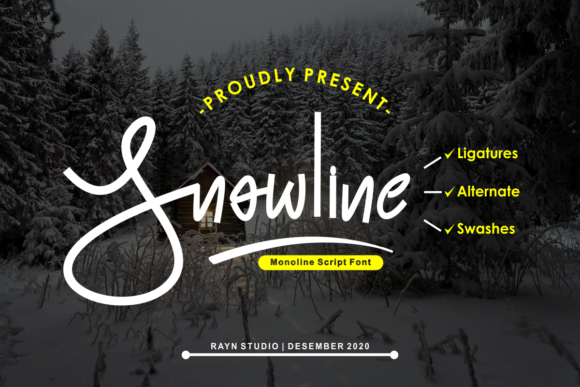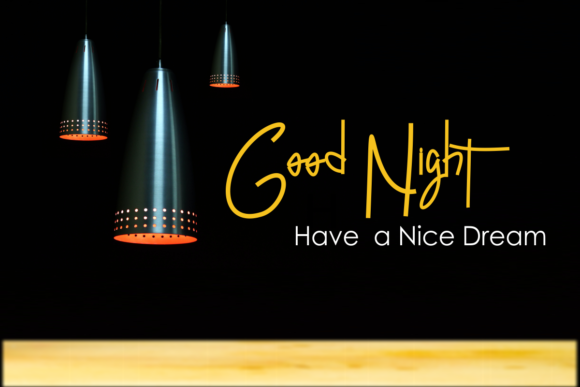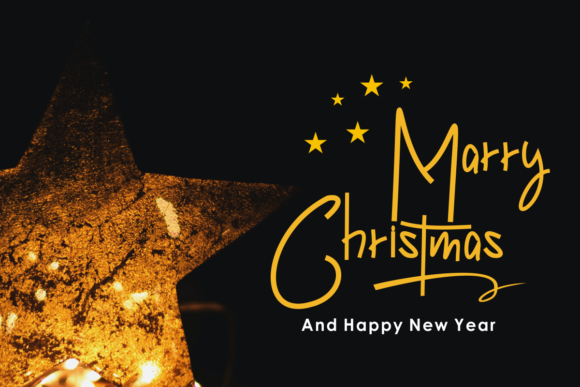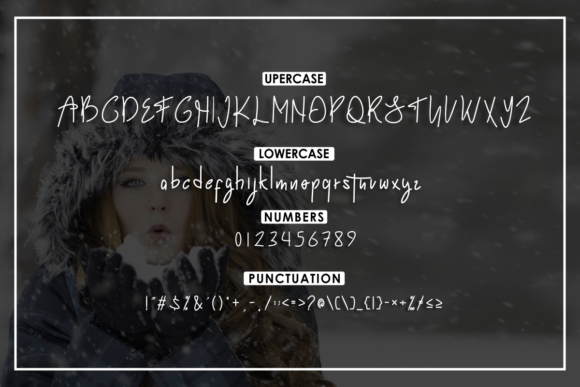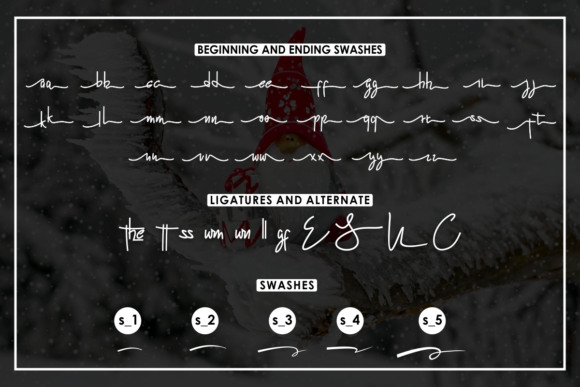
Snowline Font
About Snowline Font
Snowline is a stylish and neat handwritten font. It has a clean, trendy and versatile vibe and it will be a hit for any design that you want to add it to.